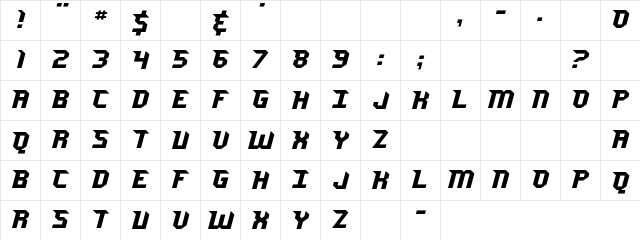
Jersey Sharp Regular
Design Context for Jersey Sharp
Jersey Sharp brings high-energy athletic personality to the page - its confident, muscular forms are built for impact.
Pro Tip: Use Jersey Sharp in all-caps headlines where its athletic energy can fully express itself. Pair with a solid, simple sans for supporting text.